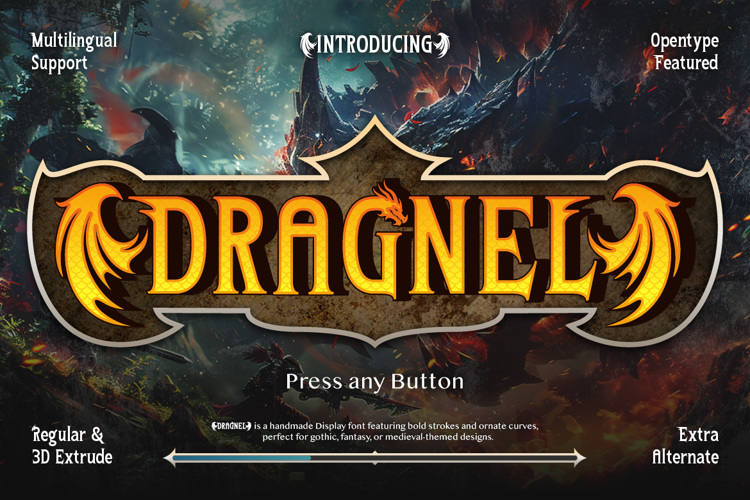
Dragnel Font
3D Extrude Style
Dragnel is a bold fantasy display font inspired by dragons and warriors — perfect for epic game titles, posters, and medieval designs.